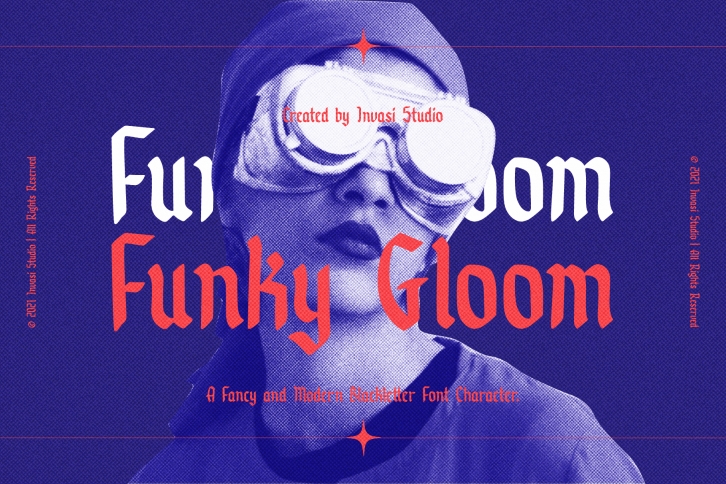
Funky Gloom is a fancy and modern blackletter font. This font is imposing and features uniquely shaped letters, and as a result, it will easily match a wide range of creations that require a distinct touch.Â